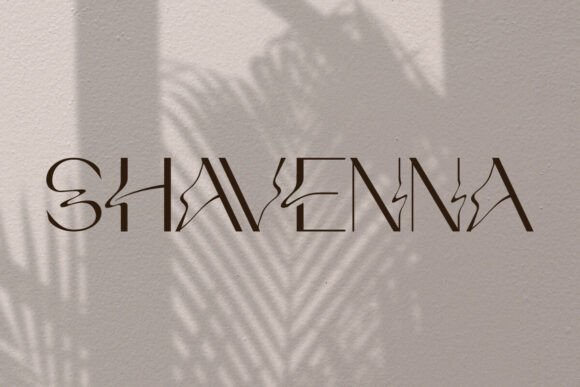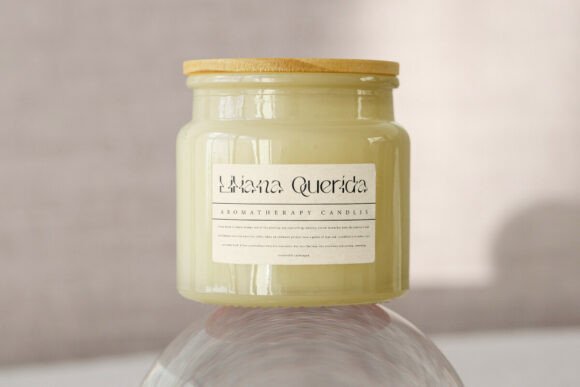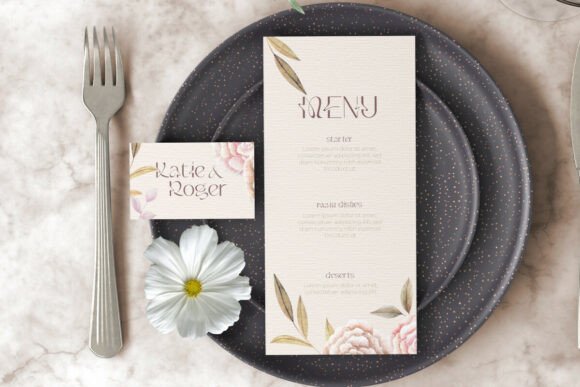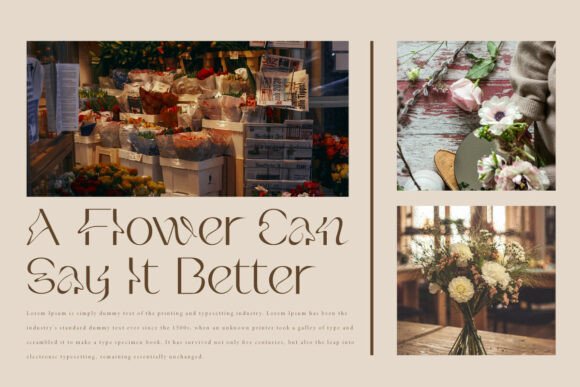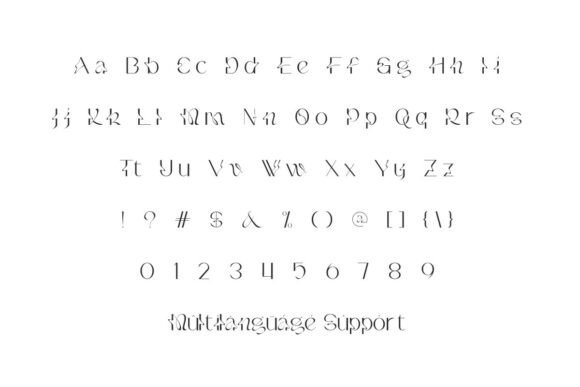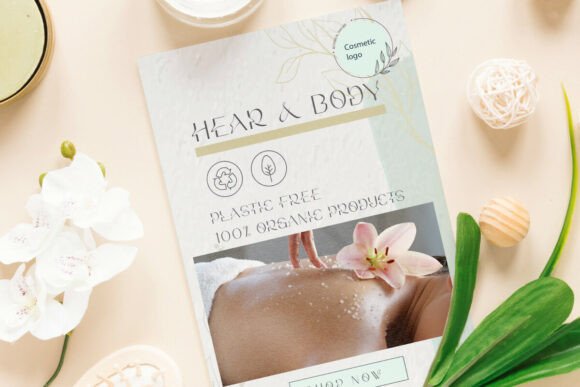
Introduction to Shavenna Font
Imagine you’re in a dark room, surrounded by flashing lights and pulsating beats. The air is electric, and you’re searching for the perfect visual representation to capture this moment. That’s where the Shavenna Font comes in – a cutting-edge display font that embodies the essence of a futuristic, high-energy atmosphere.
As a designer, you’re always on the lookout for a design resource that can elevate your creative project to the next level. The Shavenna Font is a high-quality, ultra-modern typeface that’s perfect for music visuals, abstract branding, and video game titling. Its striking, broken-line aesthetic and electric, zigzag elements create a sense of tension and dynamic movement, making it an essential tool for any designer looking to push the boundaries of typography.
With its PUA encoding included, all special characters and decorative elements are easily accessible without additional software, making it a free download that’s ready to be used in your next creative project. Whether you’re working on a futuristic concept or a high-fashion campaign, the Shavenna Font is a valuable asset that’s sure to leave a lasting impression.
Key Features of Shavenna Font
Honest Review: Shavenna Font
I recently had the chance to work with the Shavenna Font for a creative project, and I must say it’s a high-quality design resource. The font itself is beautiful, with a delicate and elegant style that’s perfect for projects that require a touch of sophistication.
One of the things that I appreciated about the Shavenna Font is its transparent background, which makes it easy to integrate with any design without worrying about unwanted backgrounds.
Here are some of the things that work well with the Shavenna Font:
- ✨ Elegant and sophisticated design
- ✨ High-quality and crisp font
- ⚠️ Limited font sizes and weights
- ⚠️ Not ideal for bold or dramatic designs
Overall, I’m impressed with the Shavenna Font. It’s a great addition to any design library, and its free download makes it accessible to designers of all levels. If you’re looking for a high-quality font for your creative project, I would definitely recommend checking it out.
Shavenna Font is a high-quality design resource that offers a unique and elegant aesthetic. With a transparent background, this font is perfect for creative projects that require a touch of sophistication.
The Shavenna Font is perfect for a variety of creative projects, including:
- Posters